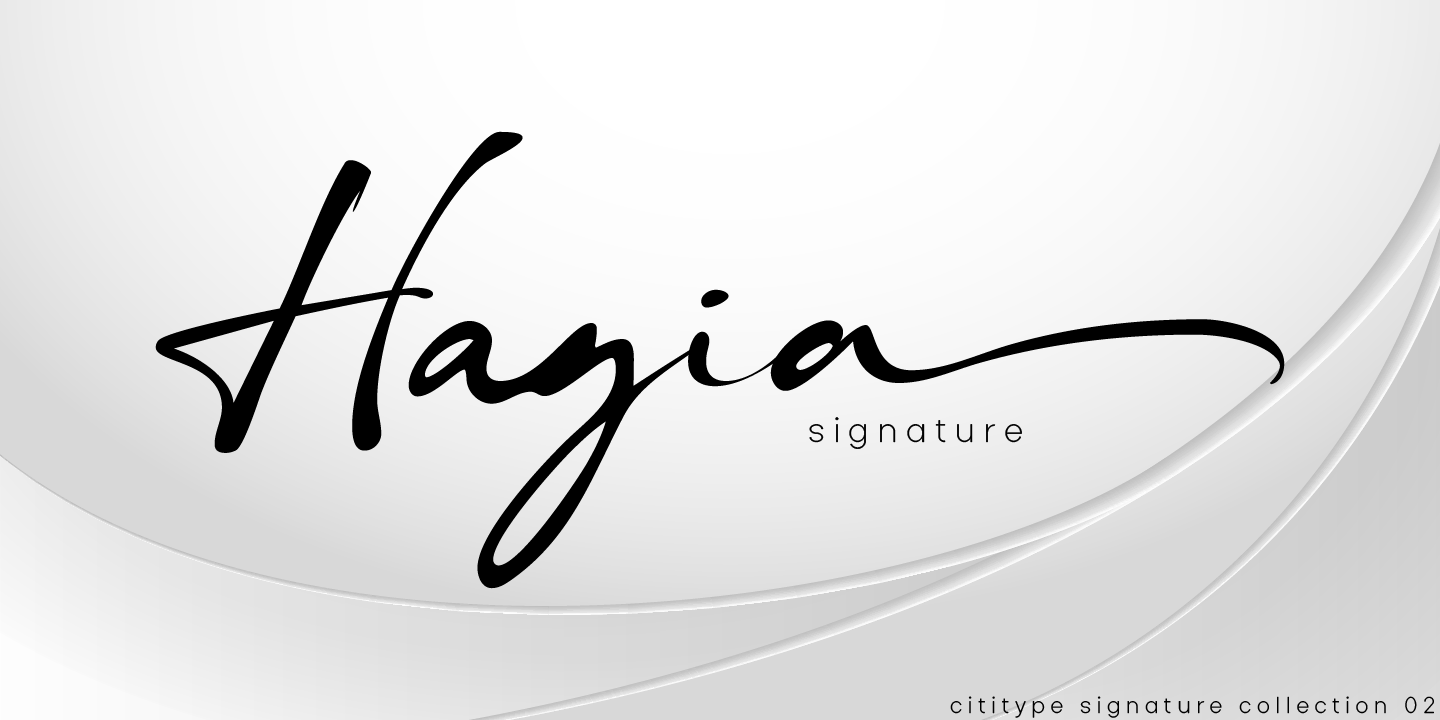
The Hagia Signature Font is an excellent choice for designs that demand a personal, elegant, and profoundly authentic touch, often with a sense of refined artistry. Imagine it lending an air of sophistication to personal branding for artists and creatives, gracing the covers of high-end journals, or adding a bespoke feel to exclusive product packaging. It's also perfectly suited for luxurious wedding invitations, upscale event signage, and any project where you want to evoke a sense of individual craftsmanship, intimacy, and timeless beauty. With its fluid strokes and graceful connections, the Hagia Signature Font is ideal for projects that seek a distinctive and personal impression.
What makes the Hagia Signature Font truly exciting is its ability to infuse designs with immediate warmth and an unmistakable sense of human artistry. It feels genuinely hand-written, giving your creations an intimate and exclusive quality. The natural flow and subtle variations in its letterforms create a unique signature style that is both visually captivating and remarkably legible for a script font. This font is perfect for establishing a brand identity that feels luxurious, trustworthy, and thoughtfully crafted, ensuring your message is not just seen, but deeply felt. The Hagia Signature Font Free Download offers a fantastic opportunity to infuse your projects with this distinctive charm.
The Hagia Signature Font family is typically designed to offer versatility while maintaining its signature elegant and flowing style. While specific family members can vary, you can often expect to find:
Hagia Signature Regular (the primary elegant script)
Hagia Signature Bold (for added emphasis on titles or special words)
Hagia Signature Slanted (or Italic, for a slightly more dynamic lean)
Hagia Signature Swash (often including decorative ligatures, alternate characters, and flourishes to enhance its calligraphic feel and provide creative embellishments)
Hagia Signature Ligatures (a specific set of combined characters for a more natural flow)
These variations provide flexibility for different design applications, allowing you to create engaging visual hierarchies and maintain a consistent, charming aesthetic across all your projects.